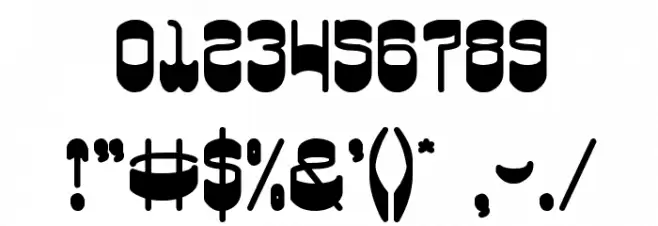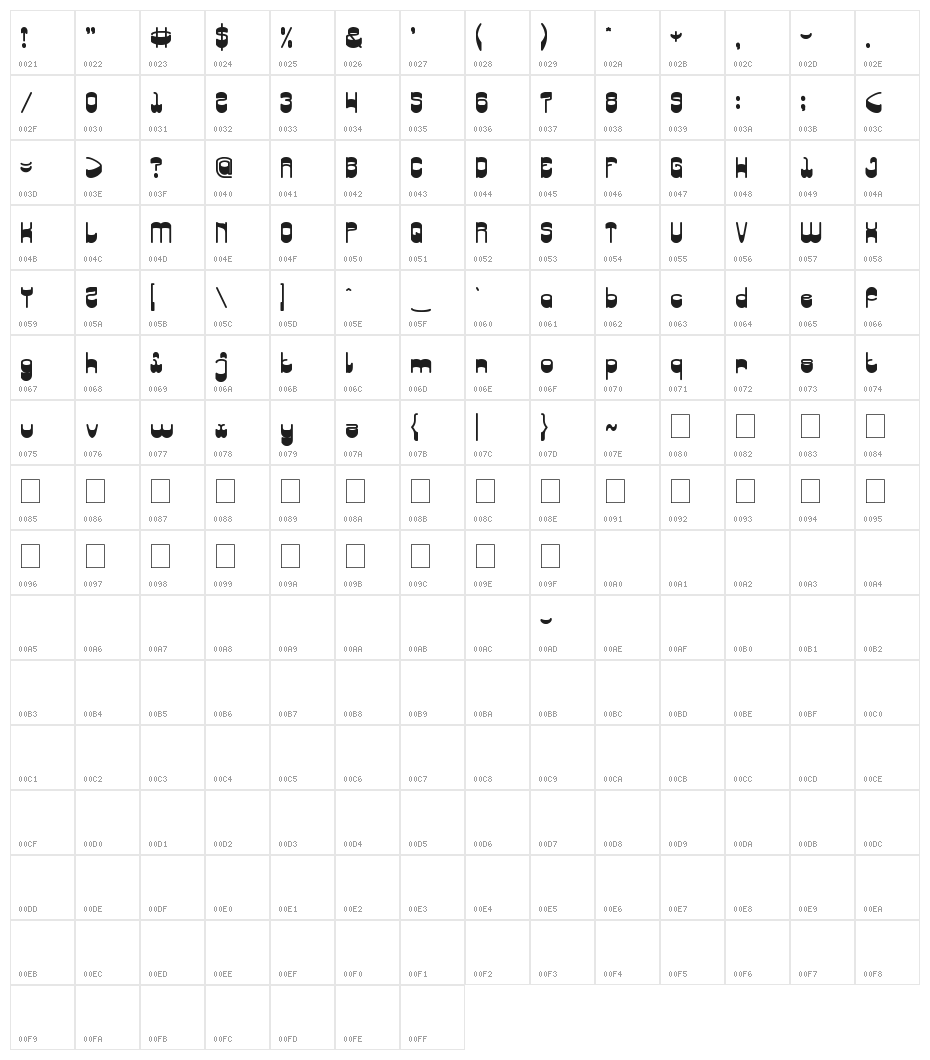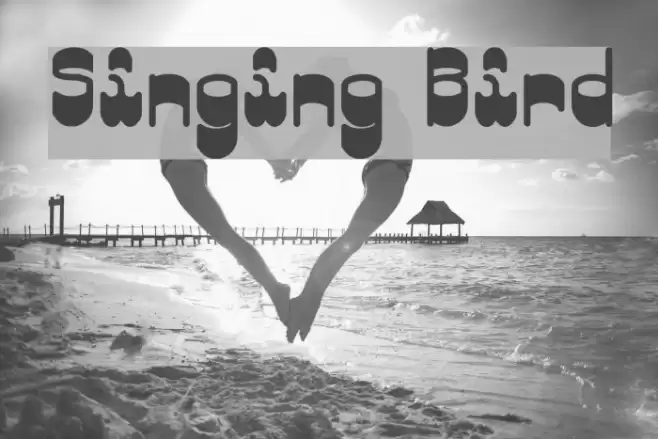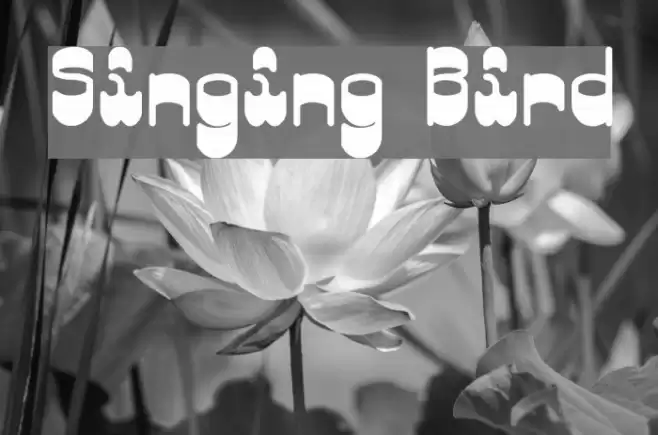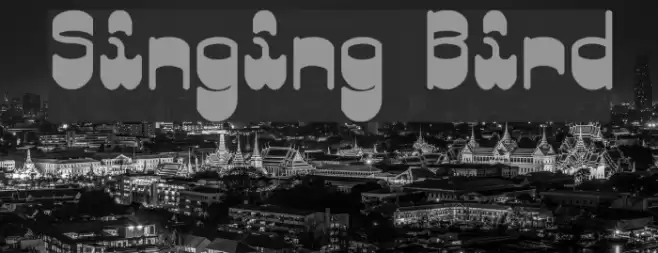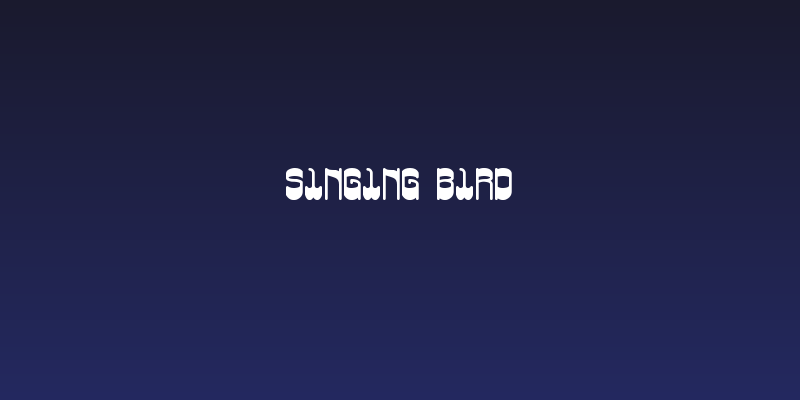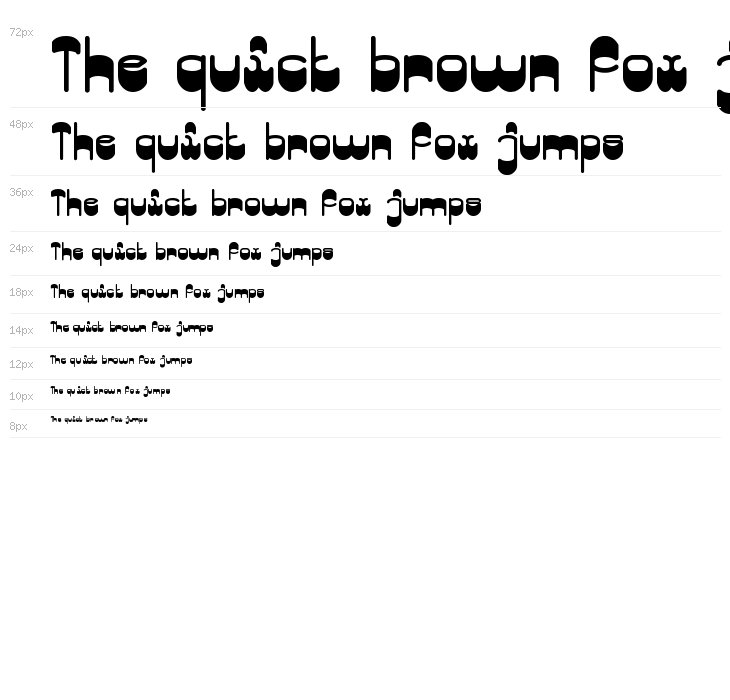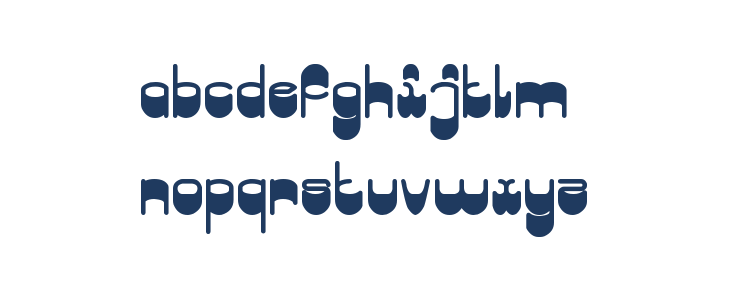
Singing Bird Font
Singing Bird Description
This font features a unique and playful design with bold, rounded shapes that create a sense of movement and energy. The letters are characterized by their thick, uniform strokes and distinctive curves, giving them a modern and artistic appearance. The uppercase and lowercase letters maintain a consistent style, with some letters exhibiting creative variations that add to the font's charm. The numerals and special characters are equally bold and maintain the overall aesthetic, making this font suitable for eye-catching designs.